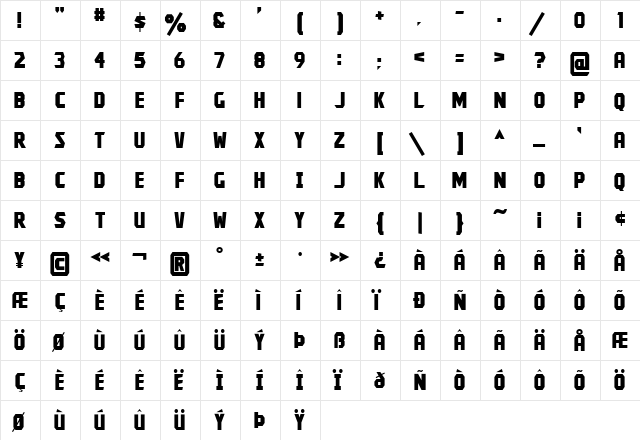
Kroftsmann Regular Font Preview
Kroftsmann Regular
Kroftsmann Regular Font Details
Design Context for Kroftsmann Typeface
Kroftsmann is a composed and adaptable typeface that performs quietly and consistently across a wide range of design contexts.
Pro Tip: Pair Kroftsmann with a font of contrasting weight or personality to build a more expressive typographic hierarchy.